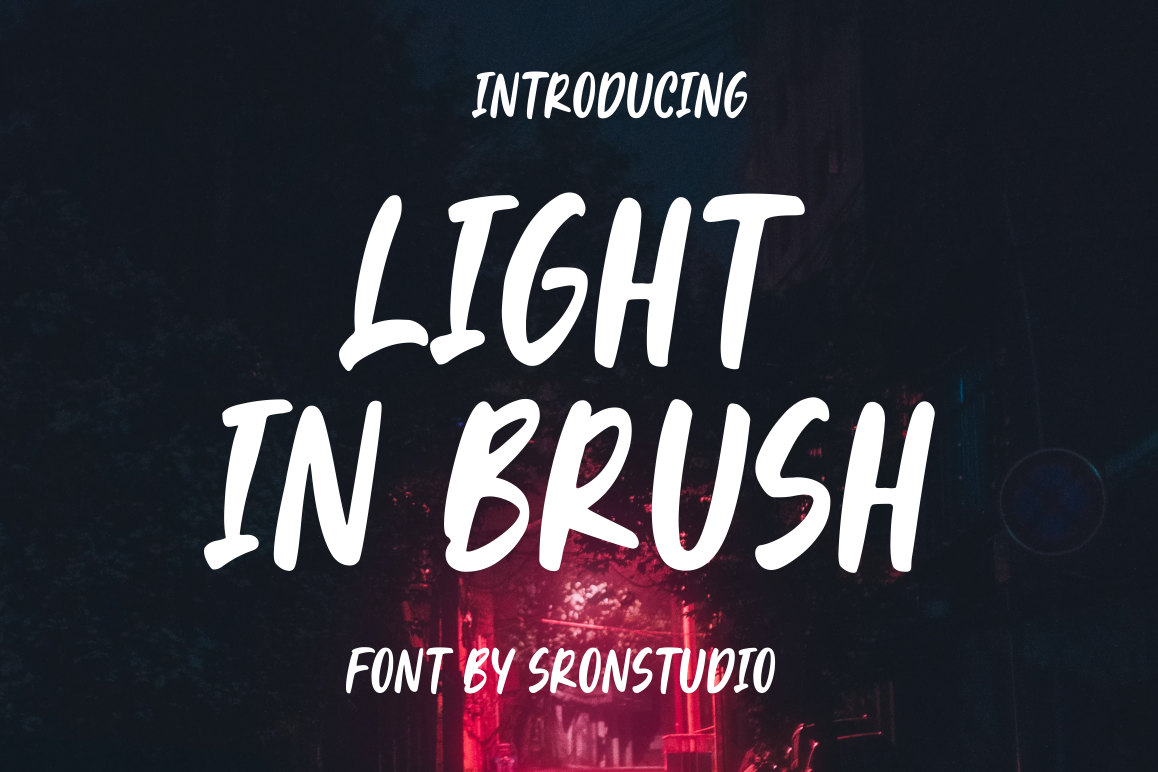
Light In Brush - Display Font
Light In Brush
Introducing Light In Brush - Display Font
Light In Brush is a natural handbrused font, this font Is perfect for logo,social media posts, advertisements, product packaging, product designs, label, special events or anything.
Light In Brush is all caps font its only comes with full set of uppercase , multilingual symbols, numerals, punctuation.